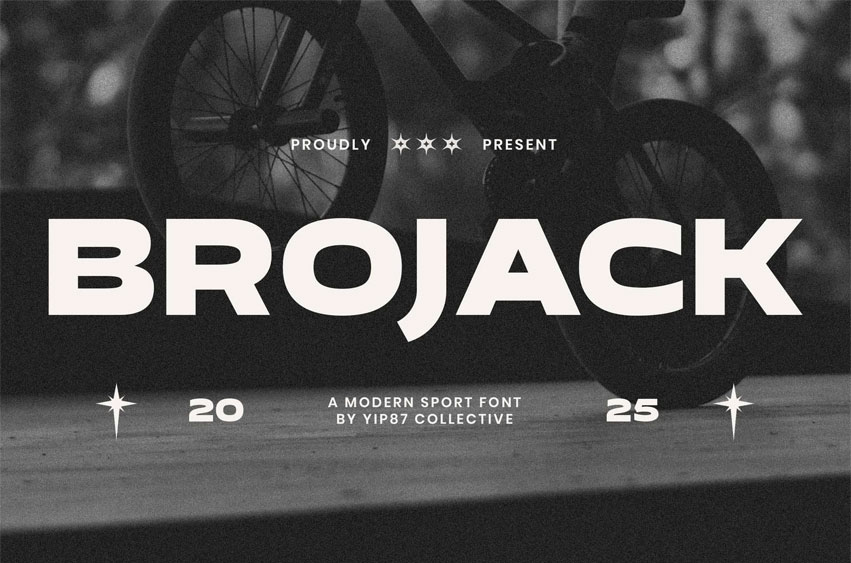
Brojack Font is a bold and energetic modern sans-serif font, specially designed for the world of sports, extreme competitions, and masculine branding. With its strong and dynamic letterforms, Brojack is perfect for skateboard posters, competition banners, athletic merchandise, and urban culture-inspired designs.
This font conveys power, speed, and fearless spirit, making it an ideal choice for headlines and logos that want to stand out in a high-energy world.